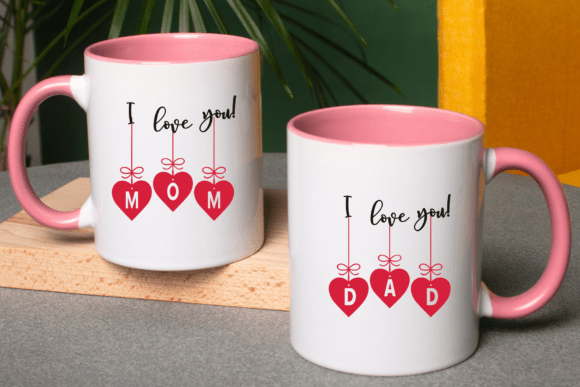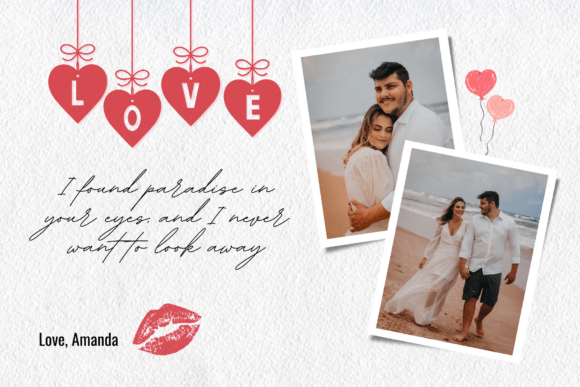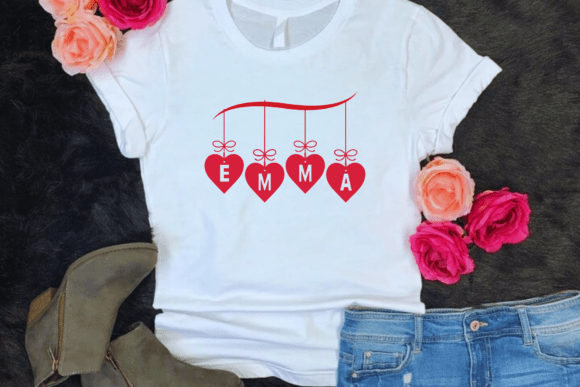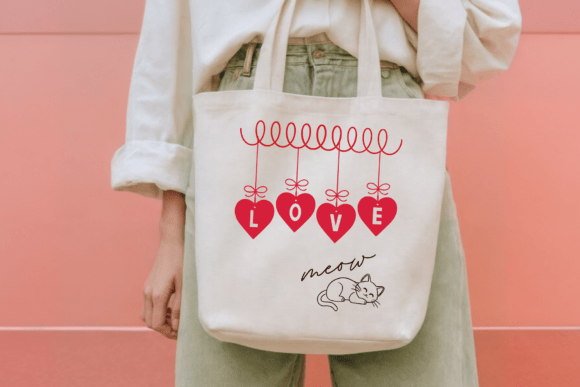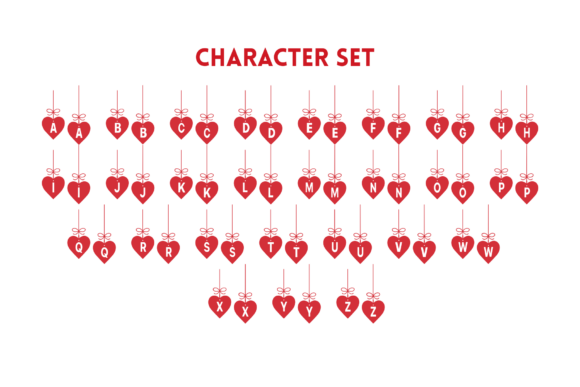
Cute Heart Monogram Font: The Perfect Addition to Your Romantic and Playful Designs
Are you looking for a font that exudes love, playfulness, and charm? Look no further than the Cute Heart Monogram Font! This decorative display font is designed to add a touch of sweetness to your designs, making it perfect for Valentine’s Day projects, Christmas crafts, wedding stationery, baby themes, and personalized gifts.
What Makes Cute Heart Monogram Font So Special?
The Cute Heart Monogram Font features hanging heart ornament letters with sweet ribbon details, giving it a unique and charming aesthetic. The font is designed to be highly versatile, making it ideal for a wide range of design applications, including titles, names, monograms, logos, stickers, cards, invitations, packaging, and DIY crafts.
Key Features of Cute Heart Monogram Font
- Decorative Display Font: The Cute Heart Monogram Font is a decorative display font that is sure to grab attention.
- Heart Ornament Style: The font features hanging heart ornament letters with sweet ribbon details, adding a touch of love and playfulness to your designs.
- Uppercase Letters: The font includes uppercase letters A-Z, making it perfect for titles, names, and monograms.
- Romantic and Playful: The font is designed to be romantic and playful, making it perfect for Valentine’s Day designs, Christmas projects, and wedding stationery.
Use Cases for Cute Heart Monogram Font
The Cute Heart Monogram Font is highly versatile and can be used for a wide range of design applications, including:
- Valentine’s Day Designs: Create romantic and playful designs for Valentine’s Day, including cards, invitations, and social media posts.
- Christmas Projects: Add a touch of festive cheer to your Christmas projects, including holiday cards, gift tags, and decorations.
- Wedding Stationery: Use the Cute Heart Monogram Font to create beautiful and romantic wedding stationery, including invitations, save-the-dates, and thank-you cards.
- Baby Themes: Create adorable and playful designs for baby themes, including baby shower invitations, nursery decor, and baby clothes.
- Personalized Gifts: Use the Cute Heart Monogram Font to create personalized gifts, including customized mugs, t-shirts, and tote bags.
Design Tips and Inspiration
Here are some design tips and inspiration to help you get the most out of the Cute Heart Monogram Font:
- Pair with Other Fonts: Pair the Cute Heart Monogram Font with other fonts to create a unique and interesting contrast.
- Use Bright Colors: Use bright and bold colors to make your designs pop and add a touch of playfulness.
- Add Graphics: Add graphics and illustrations to your designs to make them more visually interesting.
- Experiment with Sizes: Experiment with different font sizes to create a visually appealing hierarchy in your designs.
The Cute Heart Monogram Font is a beautiful and versatile font that is perfect for designers and crafters looking to add a touch of love and playfulness to their designs. With its heart ornament style, sweet ribbon details, and uppercase letters, this font is sure to grab attention and make your designs stand out. Whether you’re creating Valentine’s Day designs, Christmas projects, wedding stationery, baby themes, or personalized gifts, the Cute Heart Monogram Font is the perfect addition to your design toolkit.